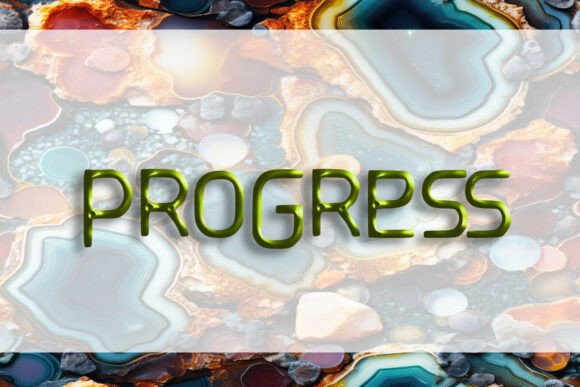
Introduction to Progress Font Font
Fonts play a crucial role in design, and the Progress Font font is a typeface that brings both character and versatility to any project. Whether you’re working on a branding project, a website, or a print design, the Progress Font font offers a unique style that can elevate your work.
Progress is a sleek and futuristic display font that combines geometric precision with a tech-inspired aesthetic.
The typeface features monolinear strokes and distinctive open counters, which give it a light, breathable feel Its most striking feature is the use of smooth, rounded corners paired with unexpected gaps in the letterforms, suggesting movement and forward momentum.
Key Features of Progress Font Font
Why Choose Progress Font Font?
The Progress Font font is more than just a typeface – it’s a design tool that helps you communicate your message with style and clarity. Its unique character set and versatile design make it suitable for a wide range of applications, from elegant invitations to bold headlines.
With its carefully crafted letterforms and balanced proportions, the Progress Font font ensures readability and visual appeal across all mediums.
What makes Progress Font font special?
The Progress Font font stands out with its unique design, exceptional readability, and versatility across various design applications.